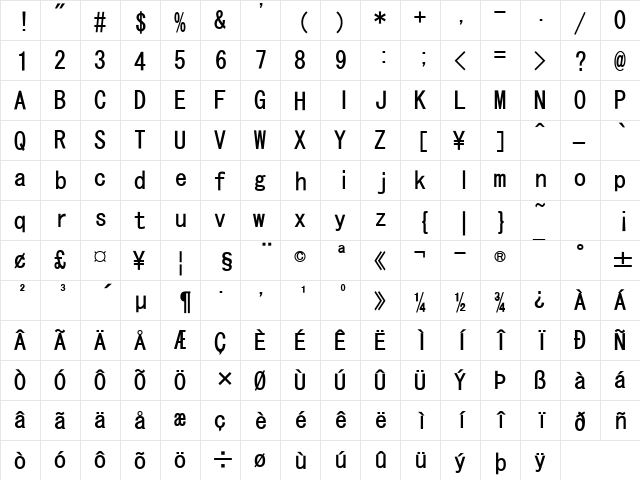
SD Viewer Font Regular
Design Context for SD Viewer Font Typeface
SD Viewer Font is a composed and adaptable typeface that performs quietly and consistently across a wide range of design contexts.